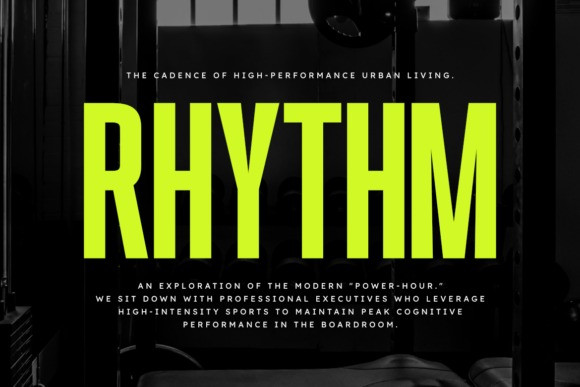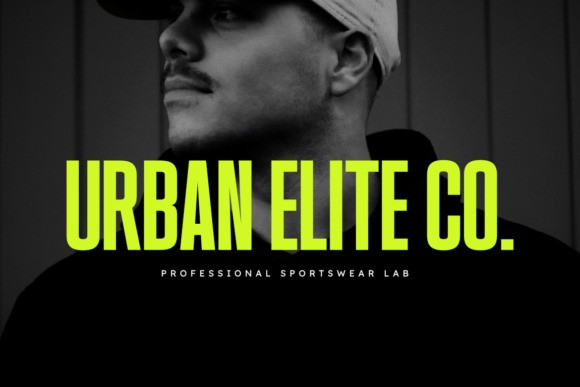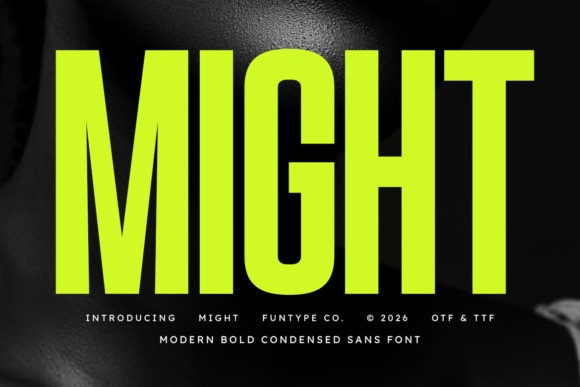
Might Font
Might Font is a massive and powerful modern bold condensed sans serif font designed for high-impact and precise typography. With its refined heavy structure, tall height, and clean, solid lines accented by unique sharp interior angles, this font is perfect for strong headlines, professional sports logos, industrial branding, and high-impact digital posters. Its confident, blocky, and balanced design gives your visuals a striking, professional, and advanced look. Provided in OTF and… TTF formats for maximum compatibility across all design platforms.